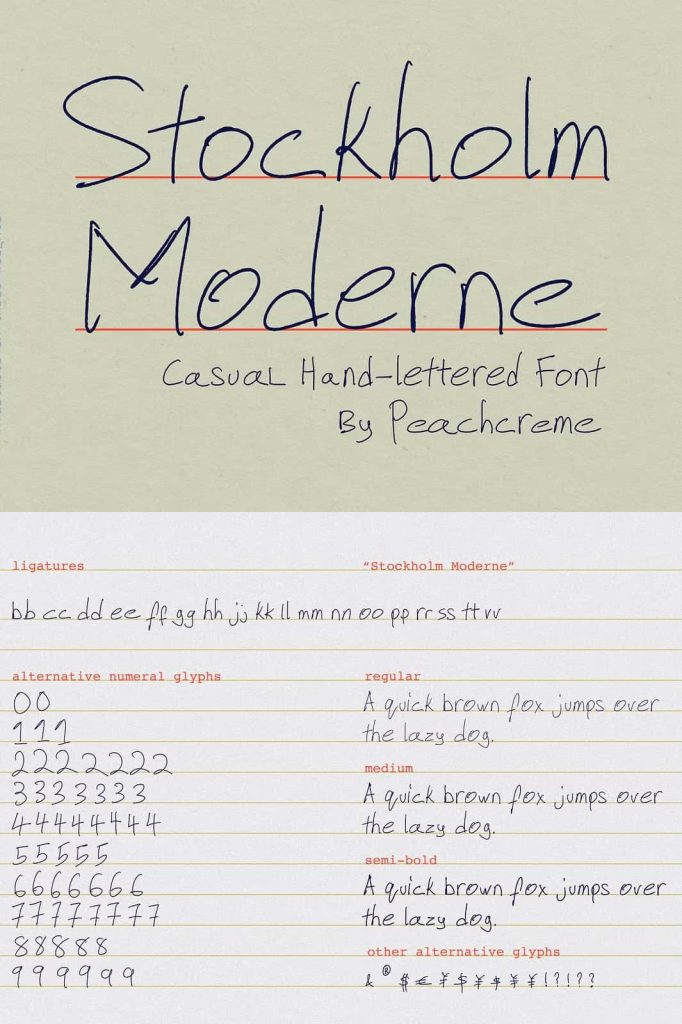
Stockholm Moderne is a casual hand-lettered font that brings a relaxed, handwritten touch to your projects. Perfect for adding a personal feel to invitations, greeting cards, and creative designs.